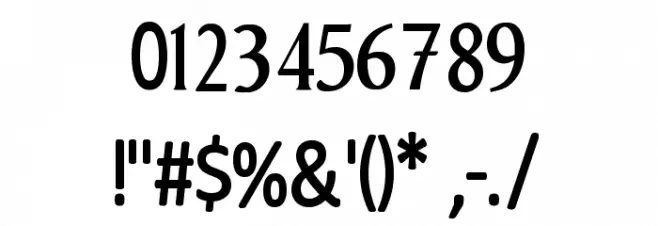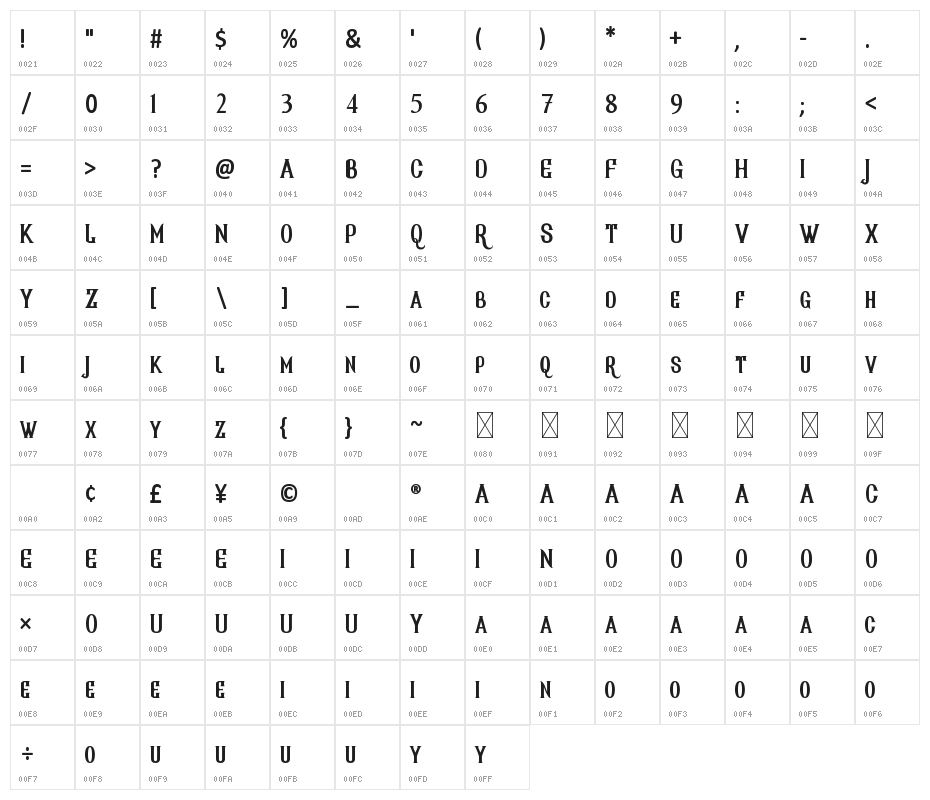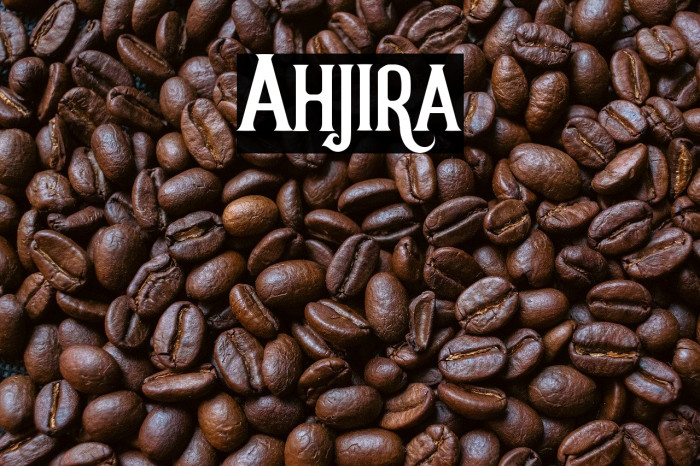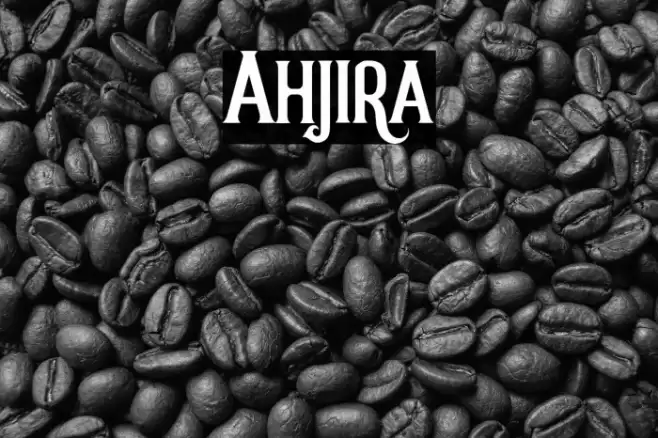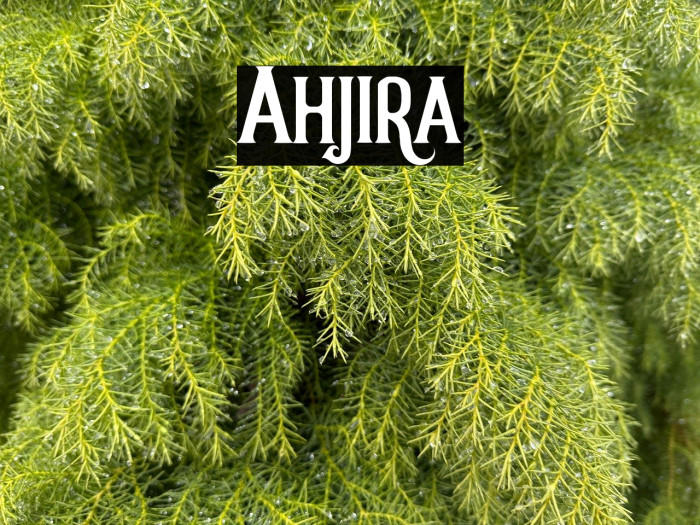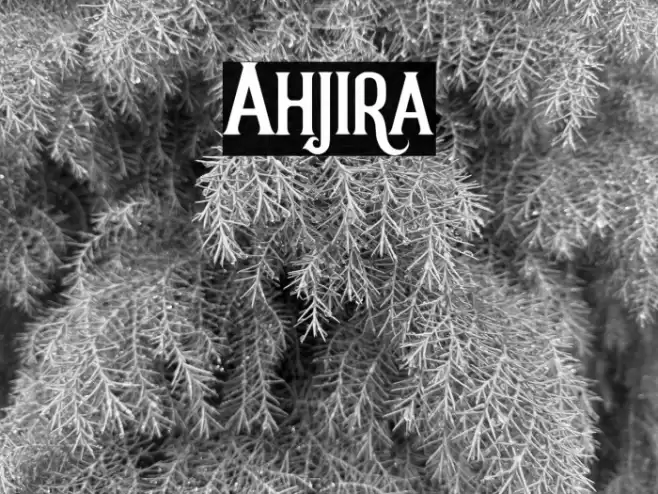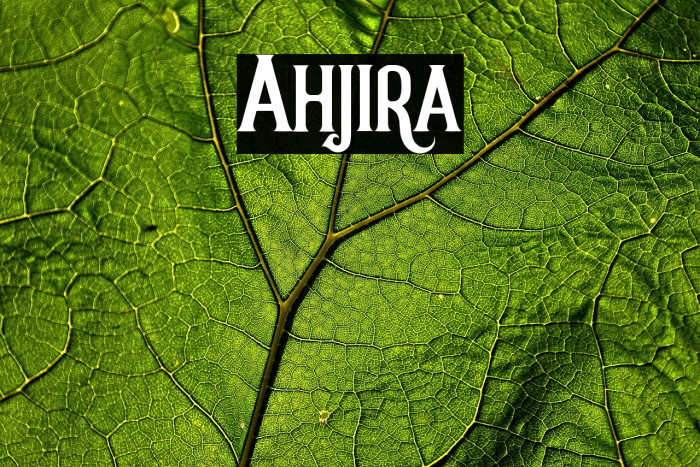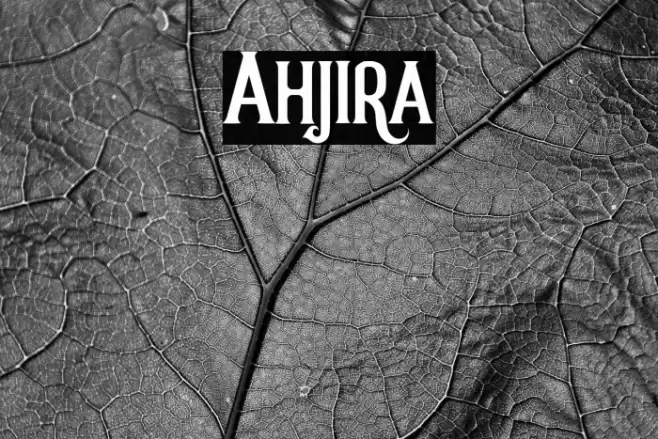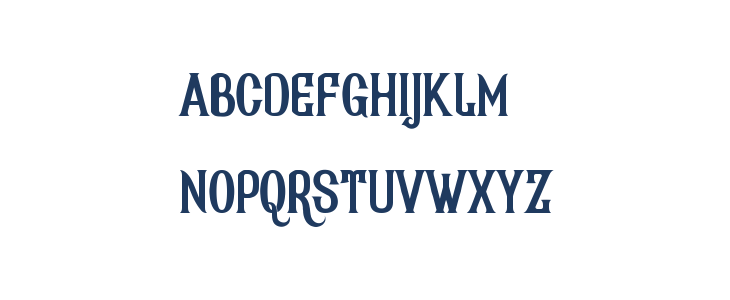
Ahjira Font
Ahjira Description
This font features a bold and decorative style with a distinct vintage flair. The uppercase letters are characterized by their strong, thick strokes and unique serifs that add a touch of elegance and sophistication. The lowercase letters maintain a consistent style, complementing the uppercase with their slightly condensed form. The numerals are bold and clear, ensuring readability while maintaining the overall aesthetic. Special characters are designed with the same attention to detail, making them suitable for a variety of uses. The font's overall appearance is both striking and versatile, making it ideal for projects that require a touch of classic charm.
| Proposed Projects | Ideal for branding, posters, headlines, and any design project that requires a vintage or classic touch. |